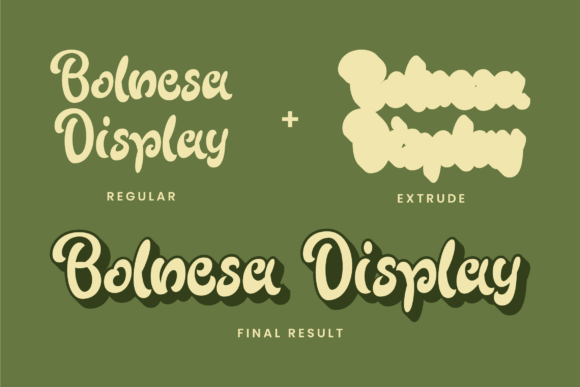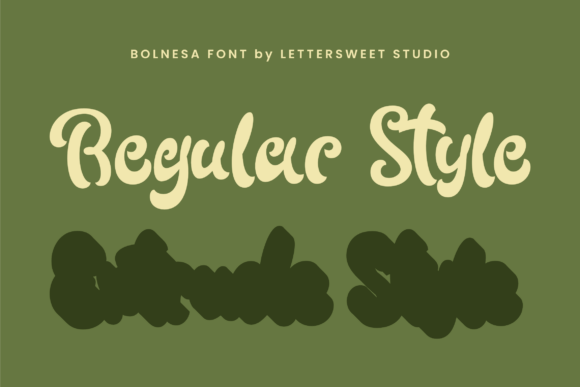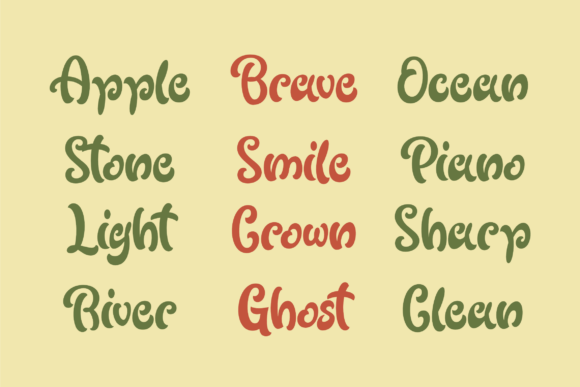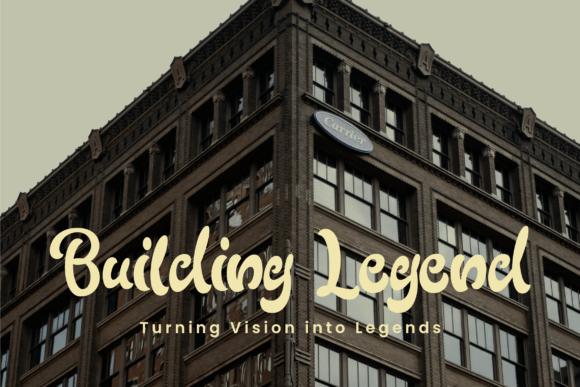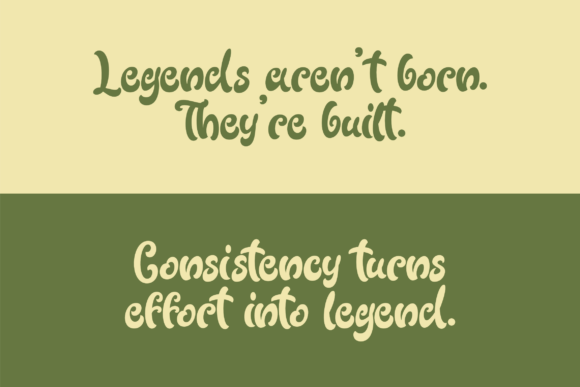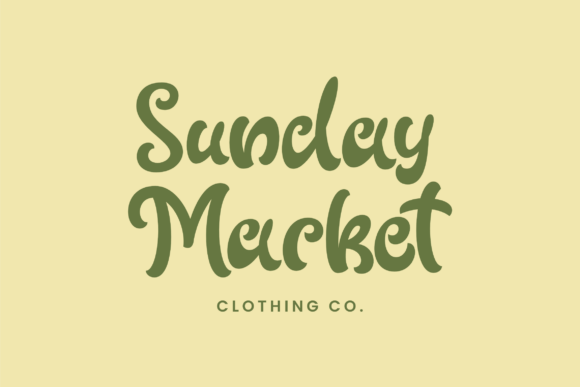
Introducing Bolnesa Font: The Ultimate Choice for Whimsical and Playful Designs
Are you looking for a font that can add a touch of magic to your designs? Look no further than Bolnesa, a bold, playful display font that is sure to capture the hearts of designers and crafters alike. With its smooth, rounded shapes and sweet storybook charm, Bolnesa brings a fairytale, kids-friendly, and whimsical feel to any design, making it perfect for creating cheerful visuals that instantly catch the eye.
The Characteristics of Bolnesa Font
Bolnesa is designed to be both cute and highly readable, making it an excellent choice for large headlines, logo wordmarks, and fun packaging. Its soft, chunky letterforms add warmth and personality, making it ideal for brands and projects that want to feel friendly, magical, and joyful. The font’s bold and adorable letterforms have a cozy, friendly vibe that is sure to appeal to designers and crafters looking for a font that can add a touch of whimsy to their work.
Ideal Uses for Bolnesa Font
Bolnesa is a versatile font that can be used in a variety of design projects, including:
- Kids logos & branding: Bolnesa’s playful and whimsical feel makes it perfect for creating logos and branding materials for kids’ products and services.
- Children’s products, toys, snacks, and clothing: The font’s sweet storybook charm and fairytale-inspired personality make it an excellent choice for designing packaging and marketing materials for children’s products.
- Storybooks, educational materials, and illustrated titles: Bolnesa’s bold and adorable letterforms make it perfect for creating eye-catching headlines and titles for storybooks, educational materials, and illustrated titles.
- Birthday invitations, baby showers, and party kits: The font’s whimsical and playful feel makes it ideal for designing invitations and party kits for special occasions.
- Posters, stickers, labels, and merch: Bolnesa’s bold and playful letterforms make it perfect for creating eye-catching posters, stickers, labels, and merchandise.
- Social media graphics with a fun, upbeat tone: The font’s friendly and whimsical feel makes it an excellent choice for creating social media graphics that are sure to grab the attention of your audience.
Why You’ll Love Bolnesa Font
There are many reasons why you’ll love Bolnesa font, including:
- Bold and adorable letterforms: Bolnesa’s bold and playful letterforms are sure to capture the hearts of designers and crafters alike.
- Fairytale-inspired personality: The font’s sweet storybook charm and fairytale-inspired personality make it perfect for creating designs that are magical, whimsical, and fun.
- Eye-catching headlines: Bolnesa’s bold and playful letterforms make it perfect for creating eye-catching headlines that are sure to grab the attention of your audience.
- Highly readable: Despite its bold and playful feel, Bolnesa is highly readable, making it perfect for use in large headlines, logo wordmarks, and fun packaging.
In conclusion, Bolnesa font is a versatile and playful font that is perfect for designers and crafters looking to add a touch of magic to their designs. With its smooth, rounded shapes and sweet storybook charm, Bolnesa brings a fairytale, kids-friendly, and whimsical feel to any design, making it perfect for creating cheerful visuals that instantly catch the eye. Whether you’re designing logos and branding materials for kids’ products, creating packaging and marketing materials for children’s products, or simply looking for a font that can add a touch of whimsy to your work, Bolnesa is an excellent choice.